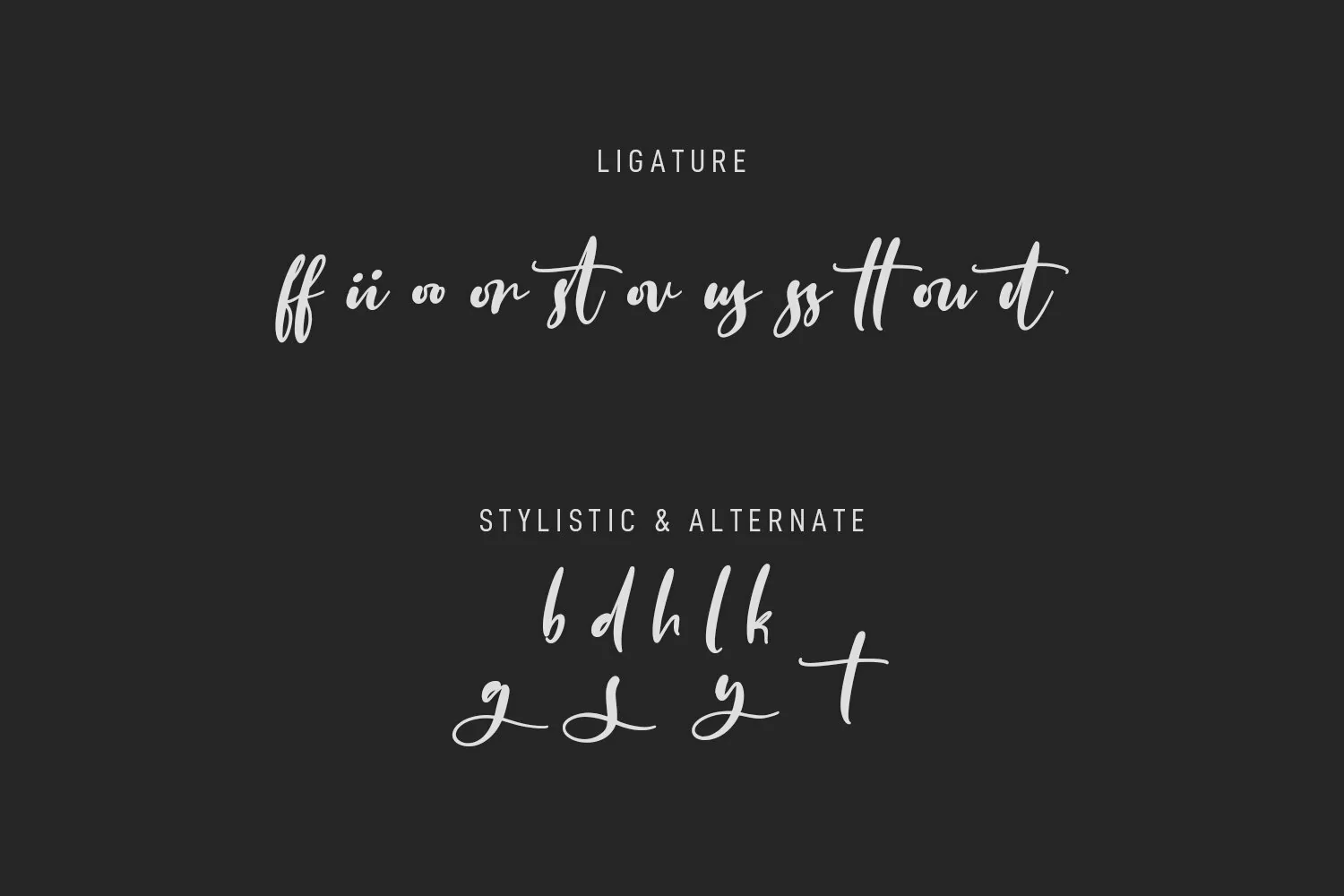
Wright Brothers is a fancy handwritten script font. With bold contrast stroke, fun character with a bit of ligatures and alternates. To give you an extra creative work. Wright Brothers font support multilingual more than 100+ language. This font is good for logo design, Social media, Movie Titles, Books Titles, a short text even a long text letter and good for your secondary text font with sans or serif. Make a stunning work with Wright Brothers font.
Wright Brothers